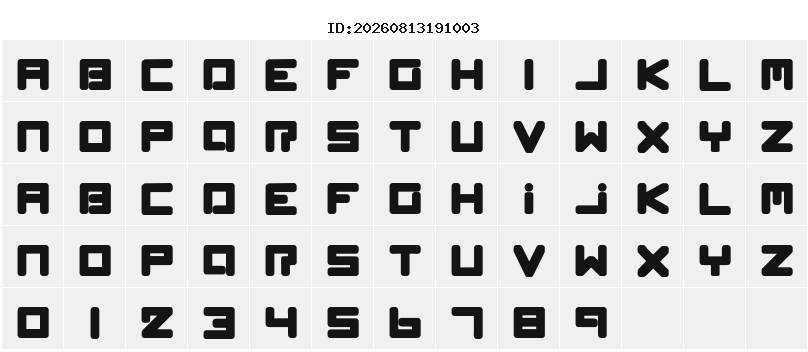
spleen machine pk Preview
• Font Name: spleen machine pk
• Font ID: paintblack: spleen machine pk: 2010
• Full Font Name: spleen machine pk
• Version: Version 1.000 2010 initial release
• PostScript Name: spleenmachinepk
• Designer: paintblack
• Manufacturer: paintblack
About spleen machine pk.ttf
spleen machine pk.ttf is a modern, elegant sans-serif font designed for ultimate readability and visual harmony. Perfect for branding, headlines, web design, and print materials.